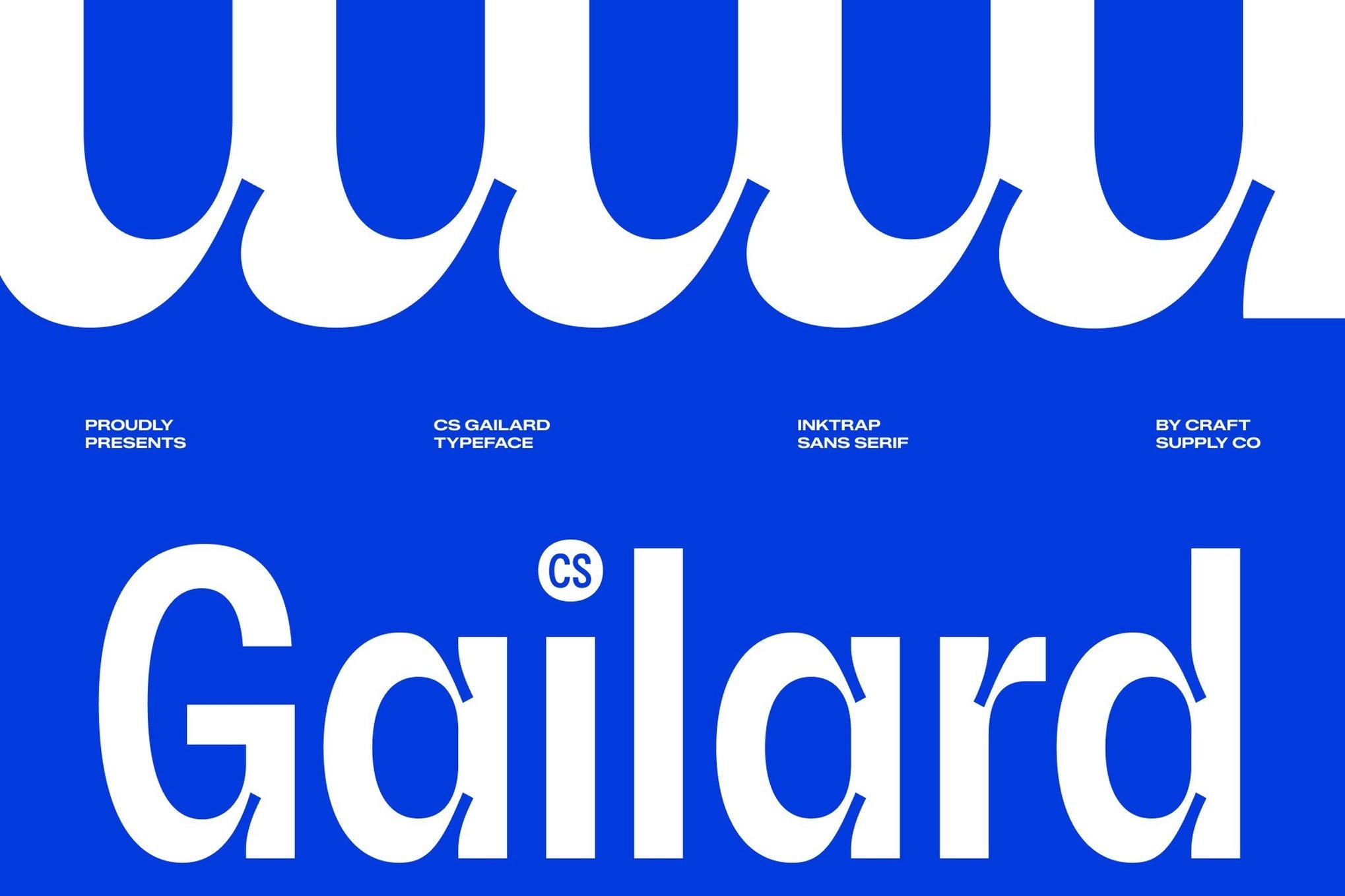
Gailard – Bold Sans Serif Font
Gailard – Bold Sans Serif Font: Where Geometric Precision Meets Friendly Character Clean Geometry with Soft Rounded Details This is a bold display sans serif font featuring distinctive inktrap details that combine clean geometric forms with soft rounded edges, creating a modern yet approachable appearance. Its balanced proportions and smooth curves produce a confident visual presence while maintaining a welcoming personality that feels both contemporary and versatile.
Distinctive Inktrap Character Thoughtfully crafted inktrap cuts add unique visual character while enhancing clarity and definition. These carefully designed details give each letter a refined technical touch, creating subtle contrast and personality that make the font stand out in bold display settings without sacrificing readability.
Bold Presence with Contemporary Versatility Combining strong geometric construction with rounded forms and expressive inktrap features, its delivers typography that is both powerful and approachable. Its modern aesthetic works effortlessly across creative and commercial applications, providing a fresh, professional look with a distinctive identity that captures attention.
Perfect for Branding, Editorial, and Contemporary Display Projects Perfect for branding, editorial headlines, packaging, posters, logos, advertising campaigns, social media graphics, product identities, signage, magazine covers, and contemporary visual identities that demand a fresh and confident look. Its fusion of bold geometric construction, refined inktrap detailing, and approachable rounded forms makes it ideal for projects that communicate clarity, creativity, and modern sophistication.